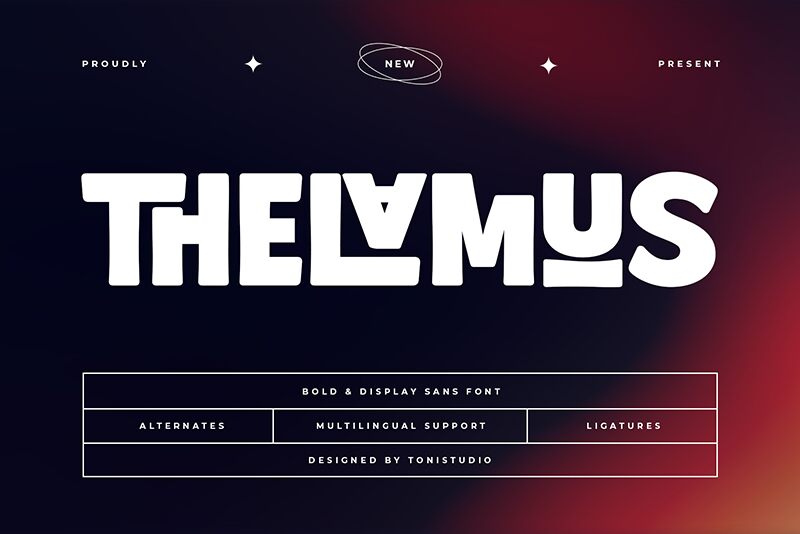
Thelamus font by ToniStudio is a free font that delivers an innovative vintage-inspired style in its broad capital letters. This stylized set consists of letters that appear abstract due to their unique appearance and noteworthy geometric designs, allowing for an attention-grabbing charm with each letter placement. Thelamus is modern and bold with a visible symmetrical display that shows even in the numbers and glyph characters provided. This font is available in one unique weight.